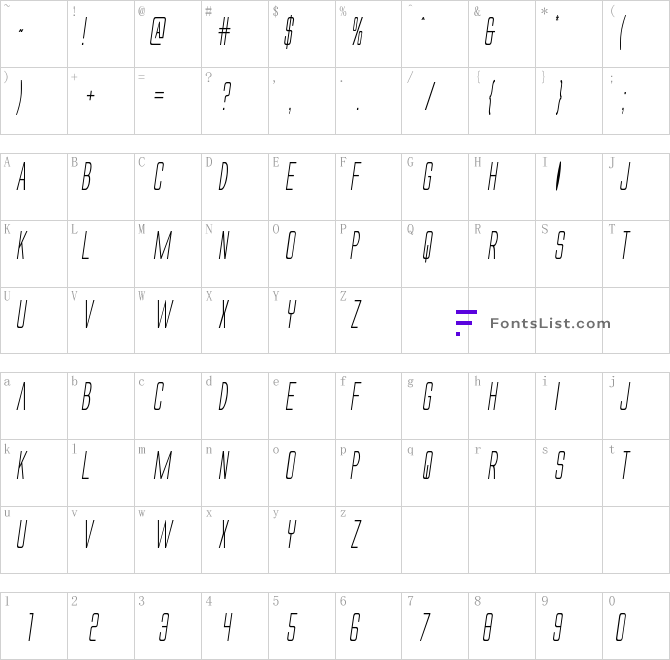
- Font Name:Alien League II Condensed Italic
Alien-League-II-Condensed-Italic.ttf is a very beautiful artistic font, Alien-League-II-Condensed-Italic.ttf is widely used in the design and printing of various books and pictures,Alien-League-II-Condensed-Italic.ttf has a strong visual impact,Alien-League-II-Condensed-Italic.ttf is a commonly used font in newspapers, magazines and books, and is used in posters, e-commerce Poster design, store design, logo design, font design and other fields.Alien-League-II-Condensed-Italic.